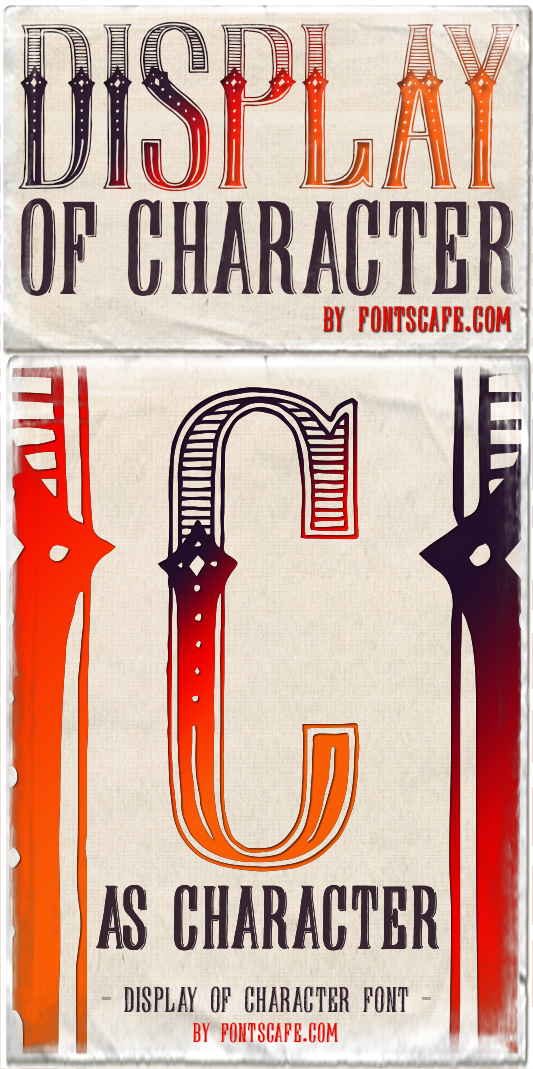
Preview and download Display Of Character Font. Created by Fontscafe.com in Fancy Retro styles with Demo license.
free for PERSONAL USE ONLY! A Display font with Character, this is the main concept of this individual "Display of Character" font http://fontscafe.com/font/display-character, which is a very little part of something more amazing and big! Check out the whole Display Of Character Vintage Illuminated Pack here http://fontscafe.com/font/display-character-vintage-illuminated-pack if you want a complete "ready to use project" for all your ILLUMINATED graphics! ;) FOLLOW US and get a free font: FACEBOOK: http://www.facebook.com/pages/Fontscafecom/284319378306355 You can find us also on: PINTEREST: https://www.pinterest.com/fontscafe/ More fonts on DaFont: http://www.dafont.com/fontscafe-com.d3347 |